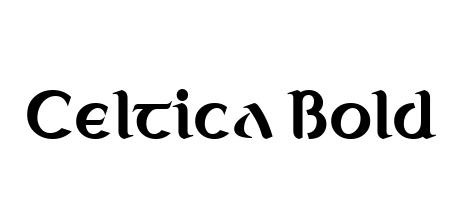
Celtica
By Wojciech Kalinowski
Celtica Bold, a font name that speaks volumes, boasts a medieval charm. Its thick, strong strokes and slightly angular serifs exude power and elegance. The letters possess a gothic feel, hinting at ancient scripts, yet maintaining a contemporary readability. Its boldness is undeniable, ideal for titles and headings demanding attention.